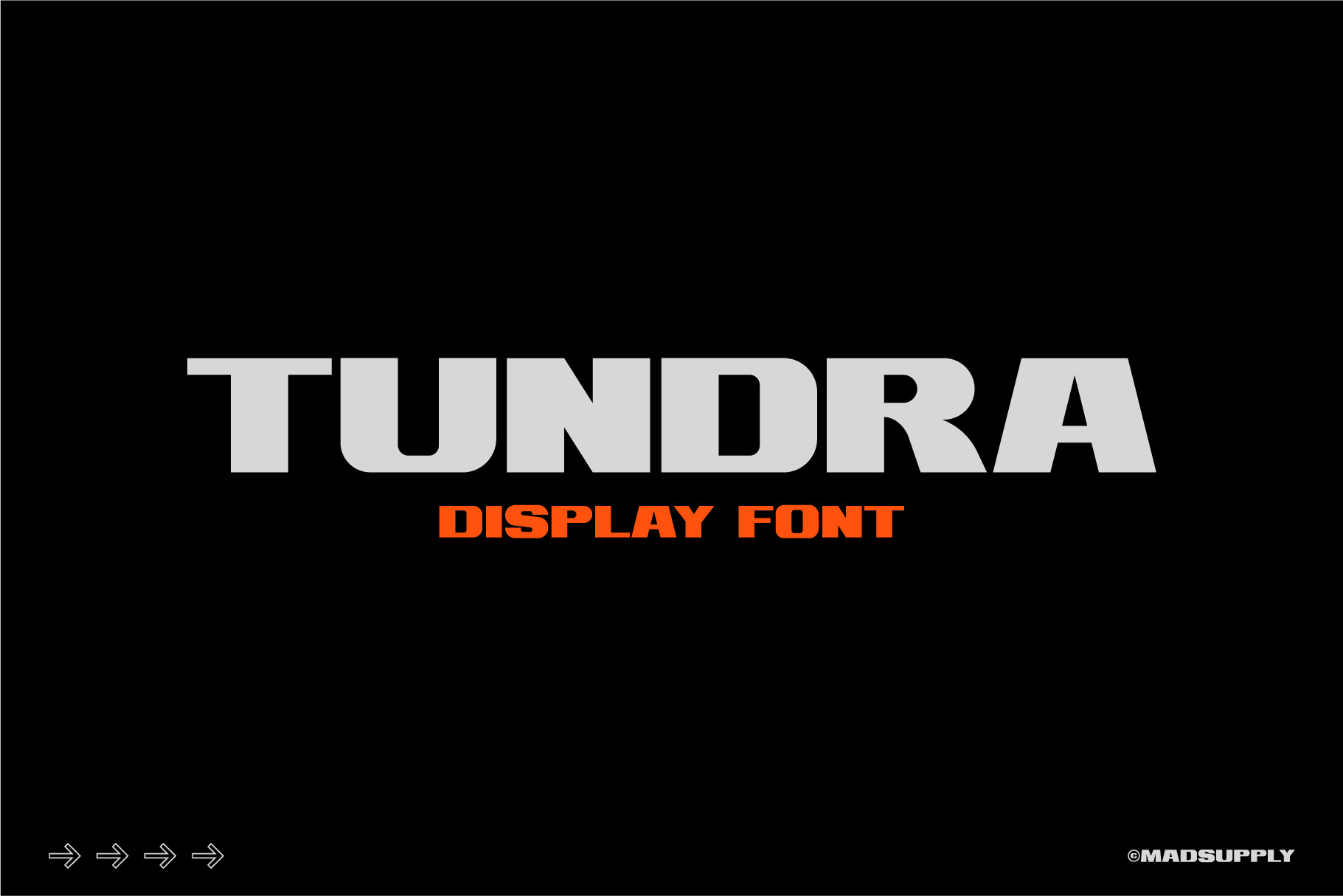
Tundra - Bold Display Font
Tundra is a modern, bold and aggressive sans-serif display font. Tundra is currently a single weight, caps only font and does not include Latin support.